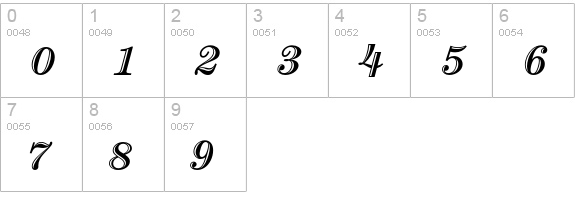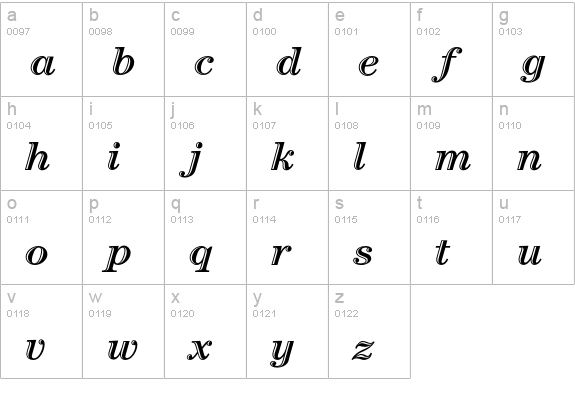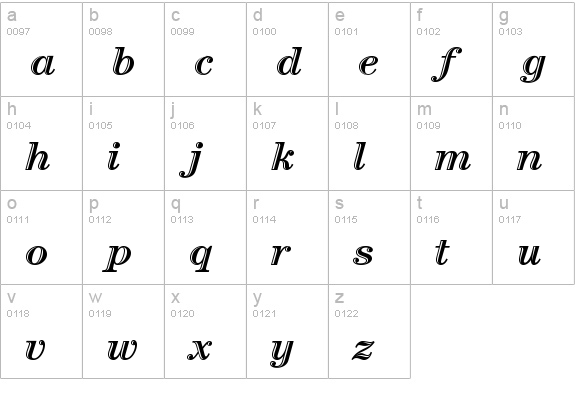
CenturyHandICG-Italic Font Details
CenturyHandICG-Italic is a distinctive, italic variant in the CenturyHandICG typeface family \xE2\x80\x94 well suited to design and typography projects.
CenturyHandICG-Italic is a timeless and elegant font that exudes sophistication and grace. Its delicate italic design adds a touch of refinement to any text, making it perfect for creating stylish and sophisticated projects. The flowing curves and unique letterforms of CenturyHandICG-Italic give a sense of elegance and charm, making it an ideal choice for invitations, greeting cards, and other special occasions. This beautiful font is not only visually pleasing but also highly versatile, suitable for a wide range of design projects. Whether you're looking to add a touch of class to your branding, create elegant wedding stationery, or simply elevate your typography game, CenturyHandICG-Italic is sure to impress. Best of all, CenturyHandICG-Italic is available for free download at FontsMarket.com. This means you can easily access this stunning font and incorporate it into your projects without any cost. Don't miss out on the opportunity to enhance your designs with this exquisite typeface – download CenturyHandICG-Italic today and elevate your creative work to new heights.